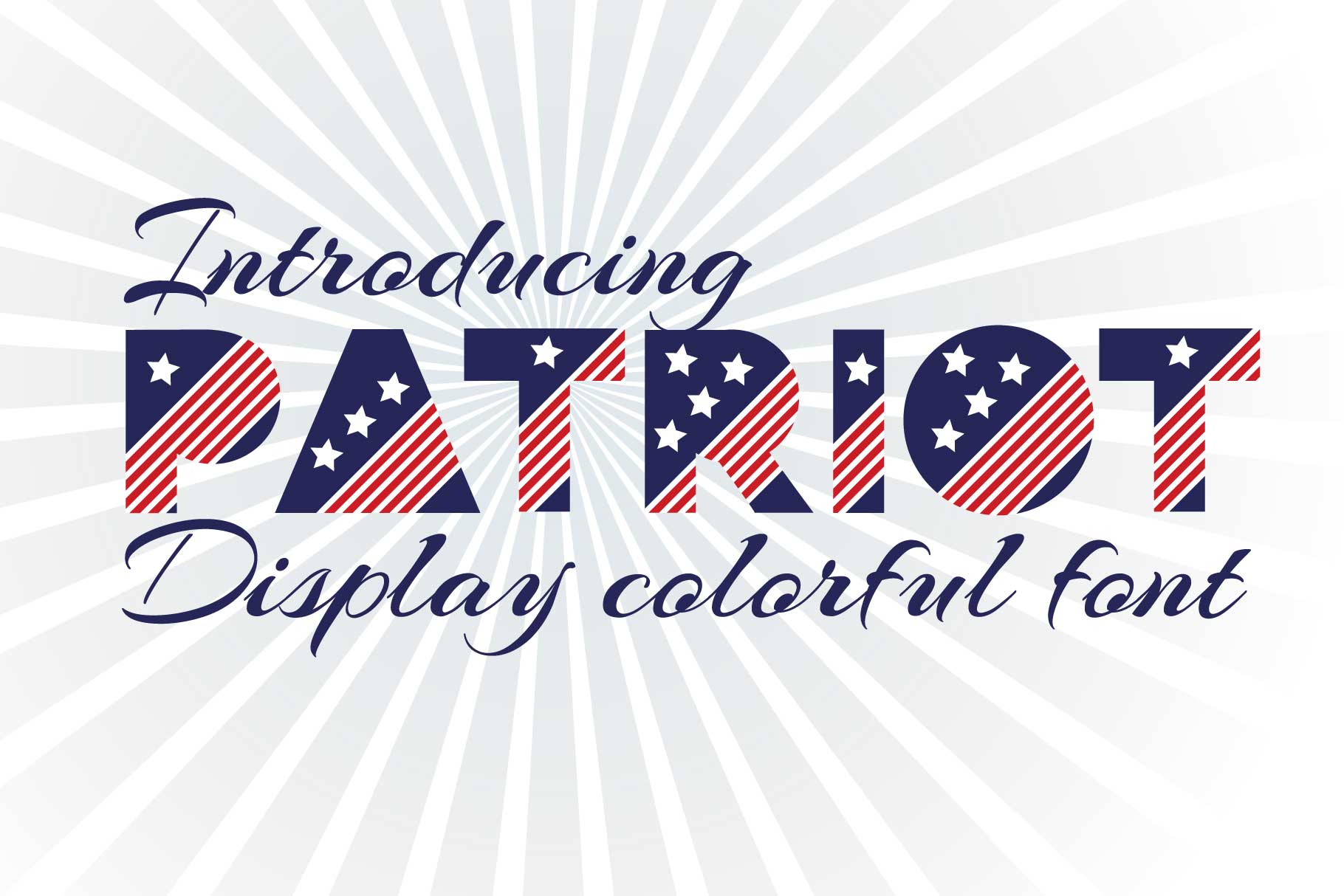
Patriot is a cool and friendly color font. It can be added to a variety of design ideas. Add it confidently to your projects, and you will love the results.
Font Name: Patriot Font